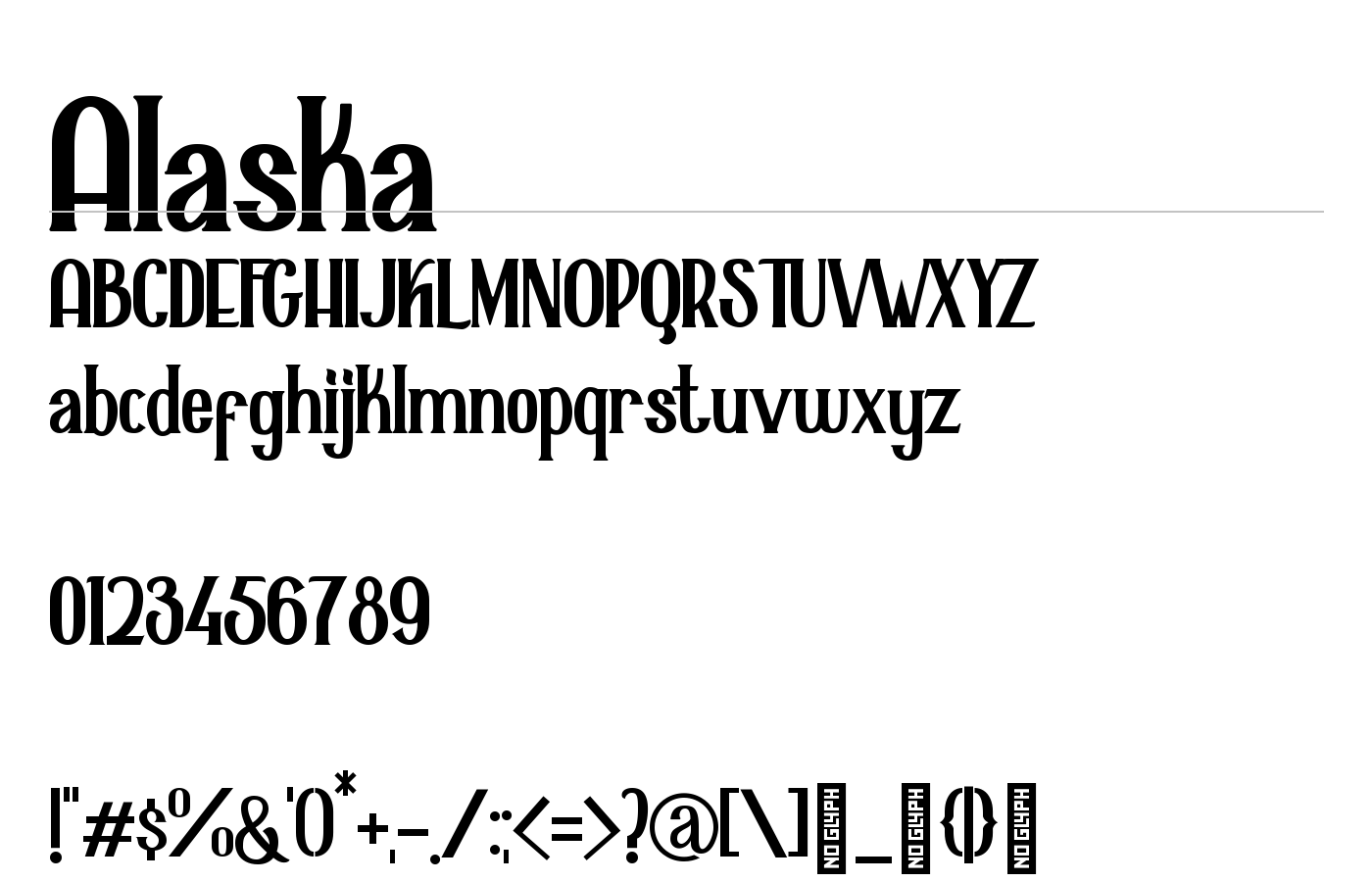
Alaska is a condensed serif font with a vintage yet slightly playful character, featuring high contrast between thick and thin strokes and elegant bracketed serifs. Its tall x-height and distinctive letterforms, such as the curved tail on the Q and the single-story a, give it a unique, refined look that works well for headlines, logos, and editorial designs seeking a stylish, classic feel with a modern twist. This font is ideal for branding and display purposes where a strong, memorable impression is desired.
Alaska Font